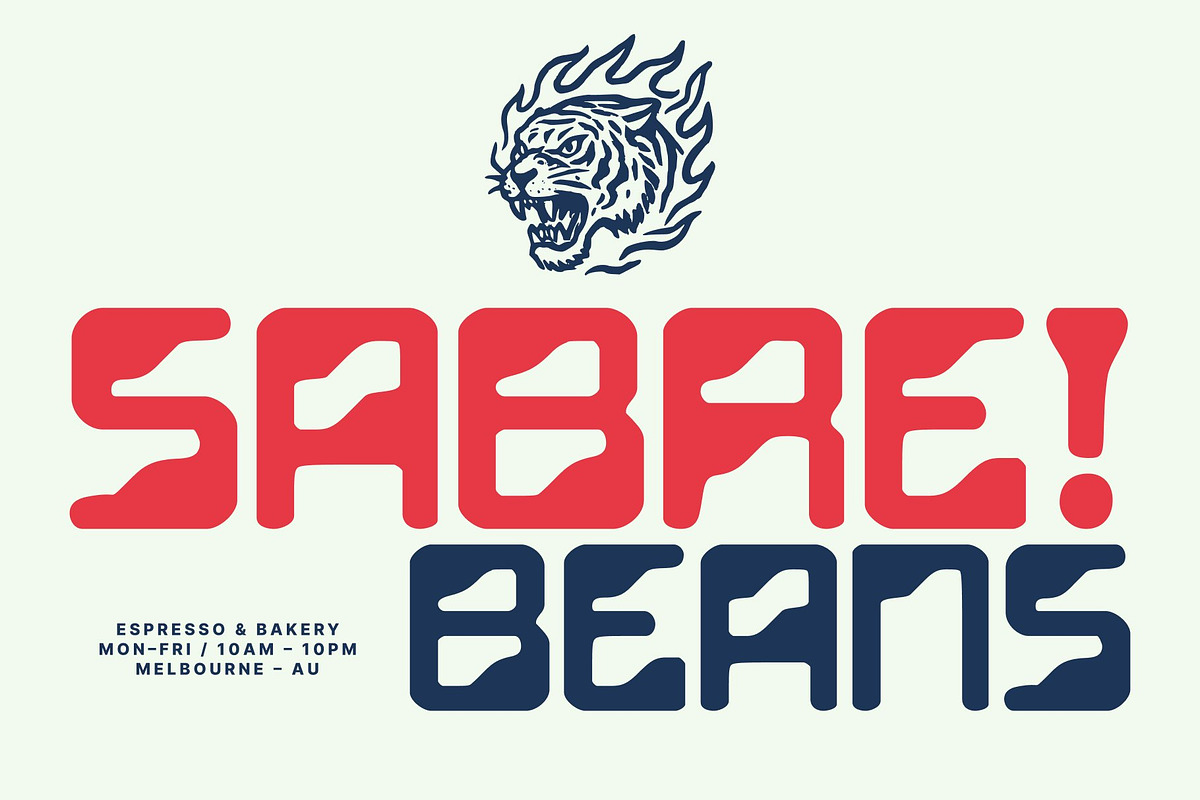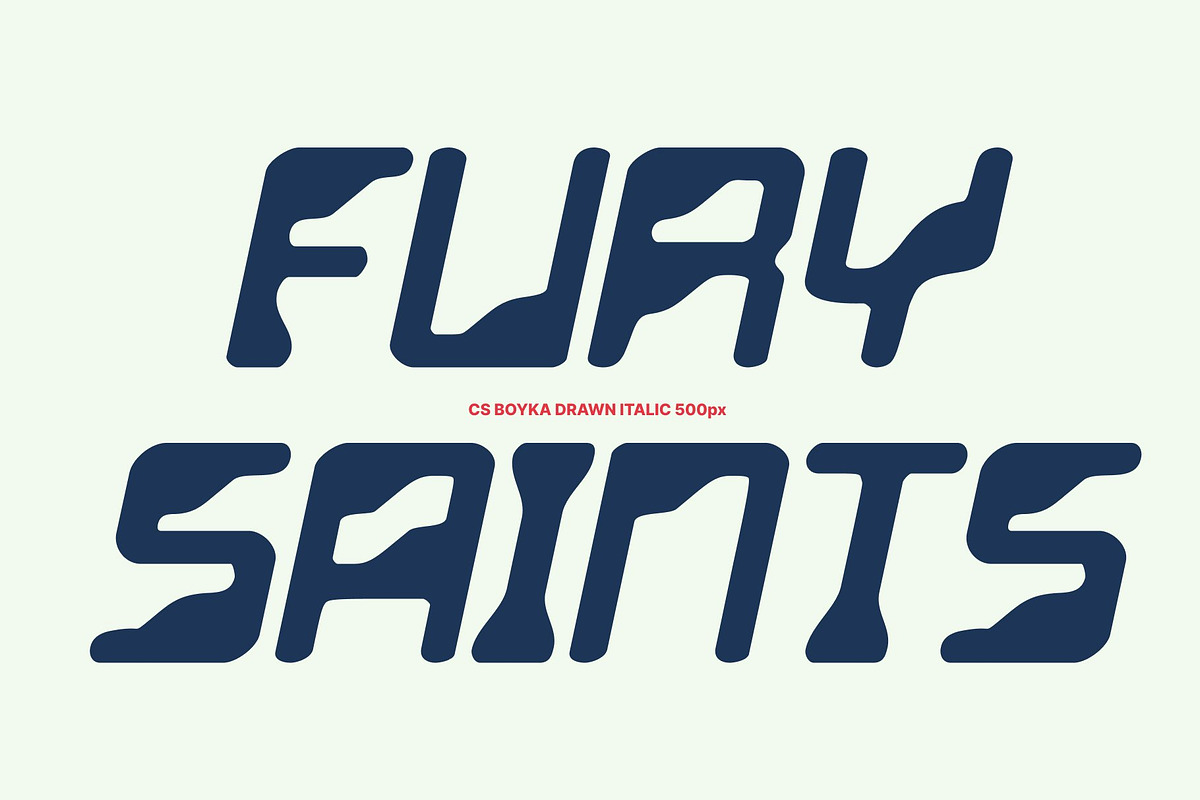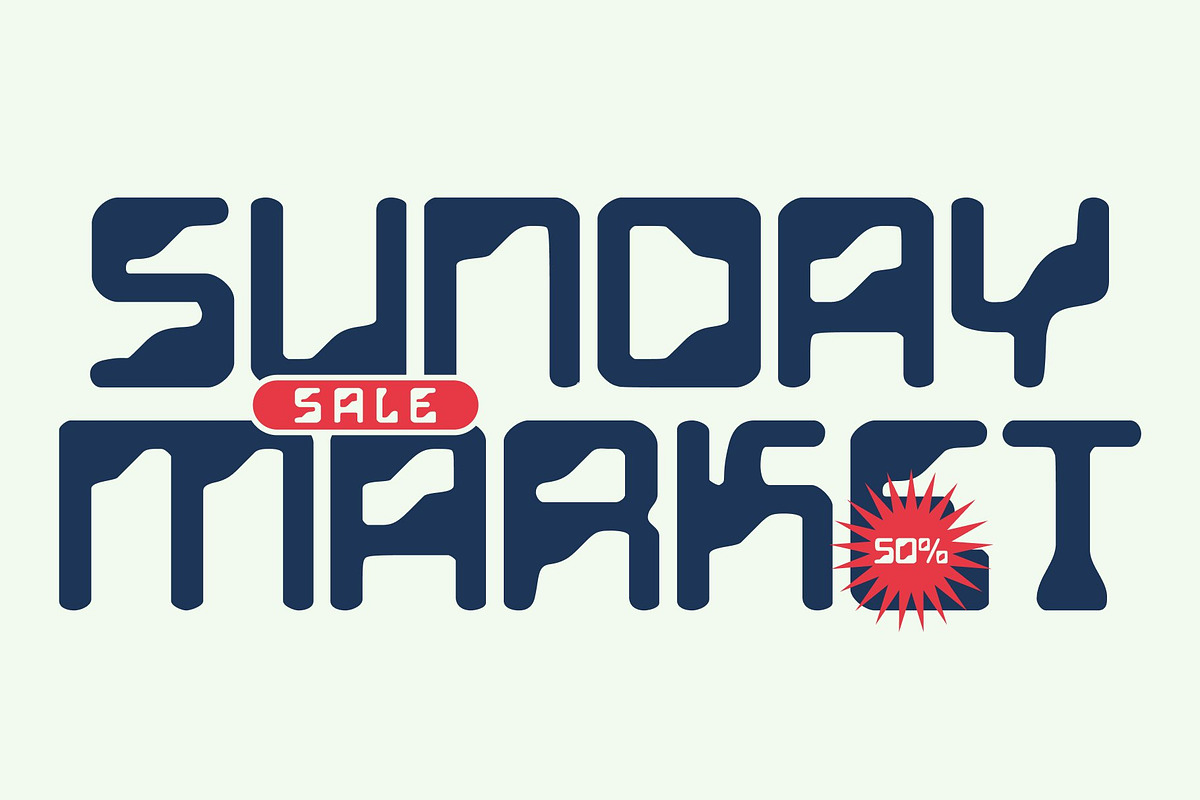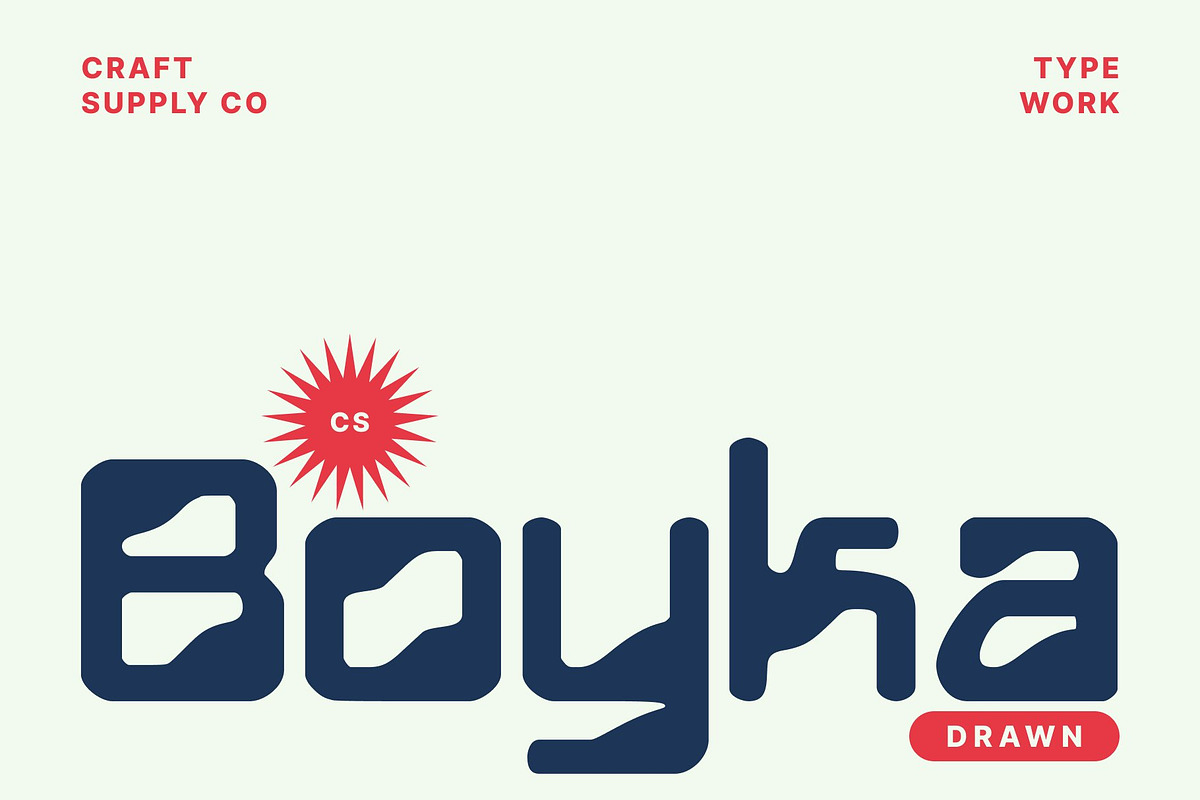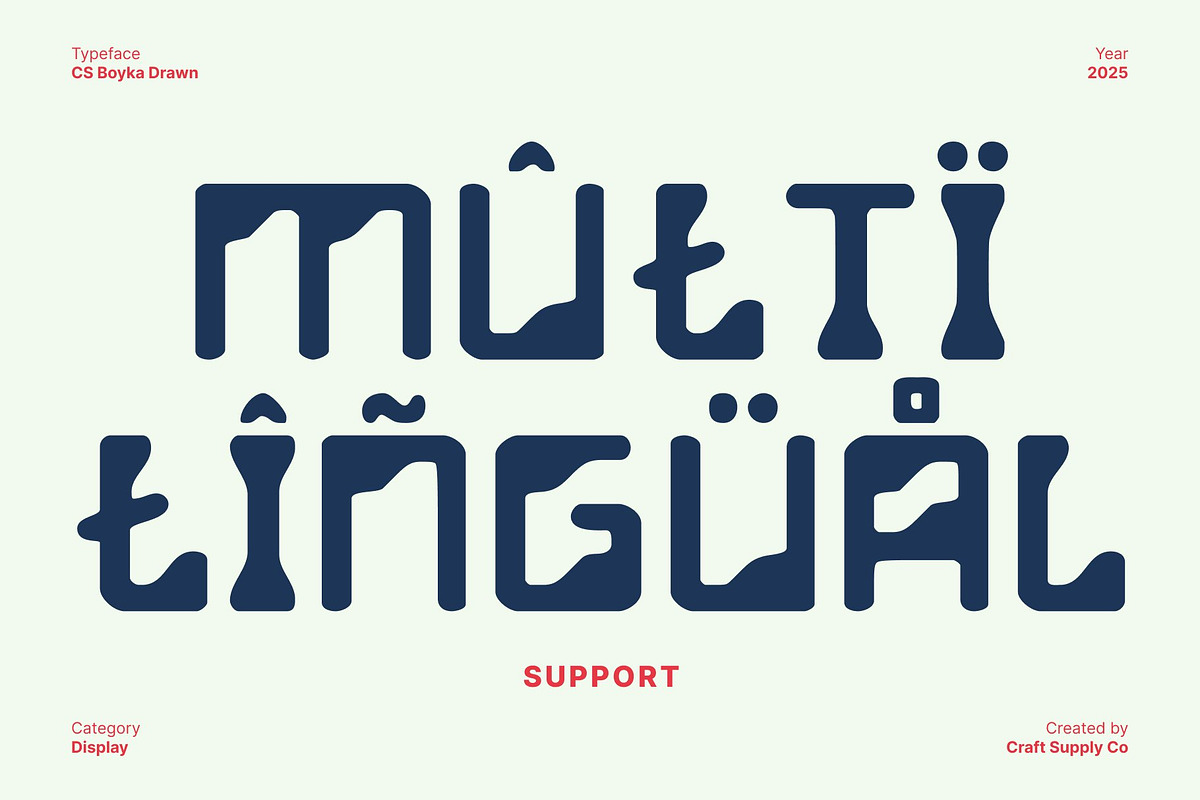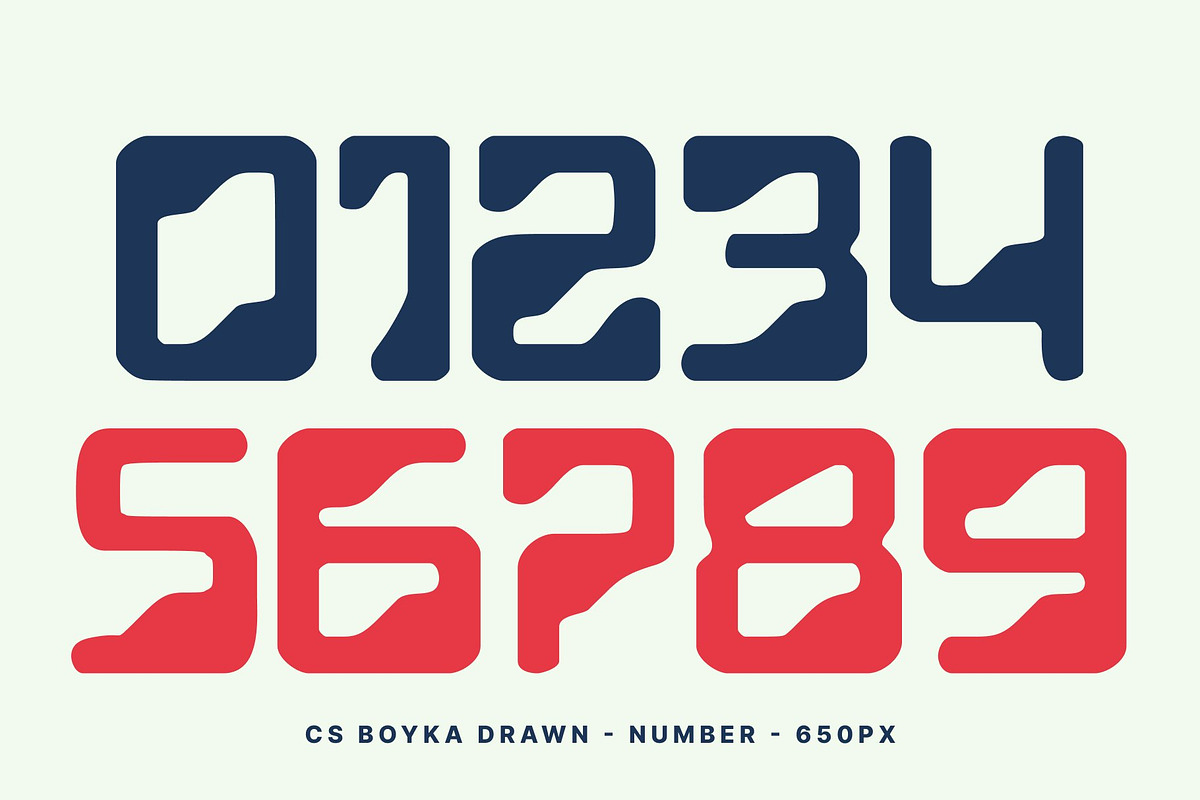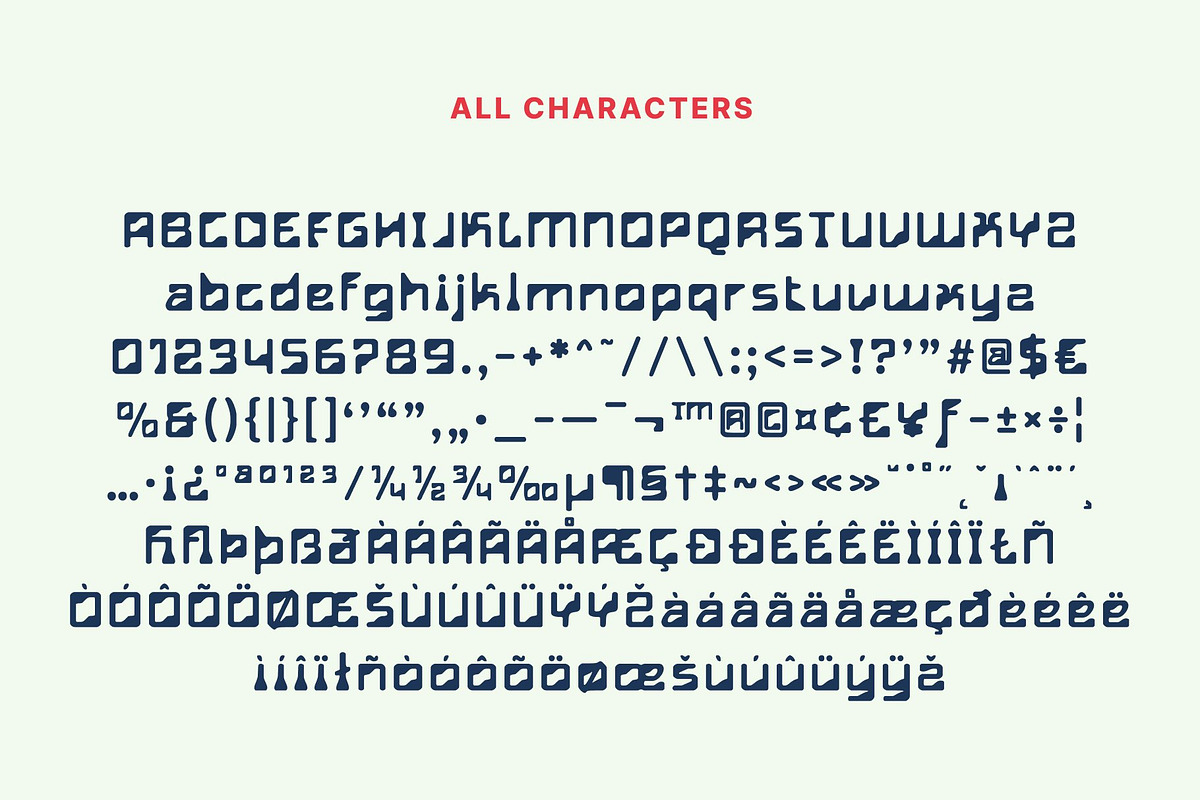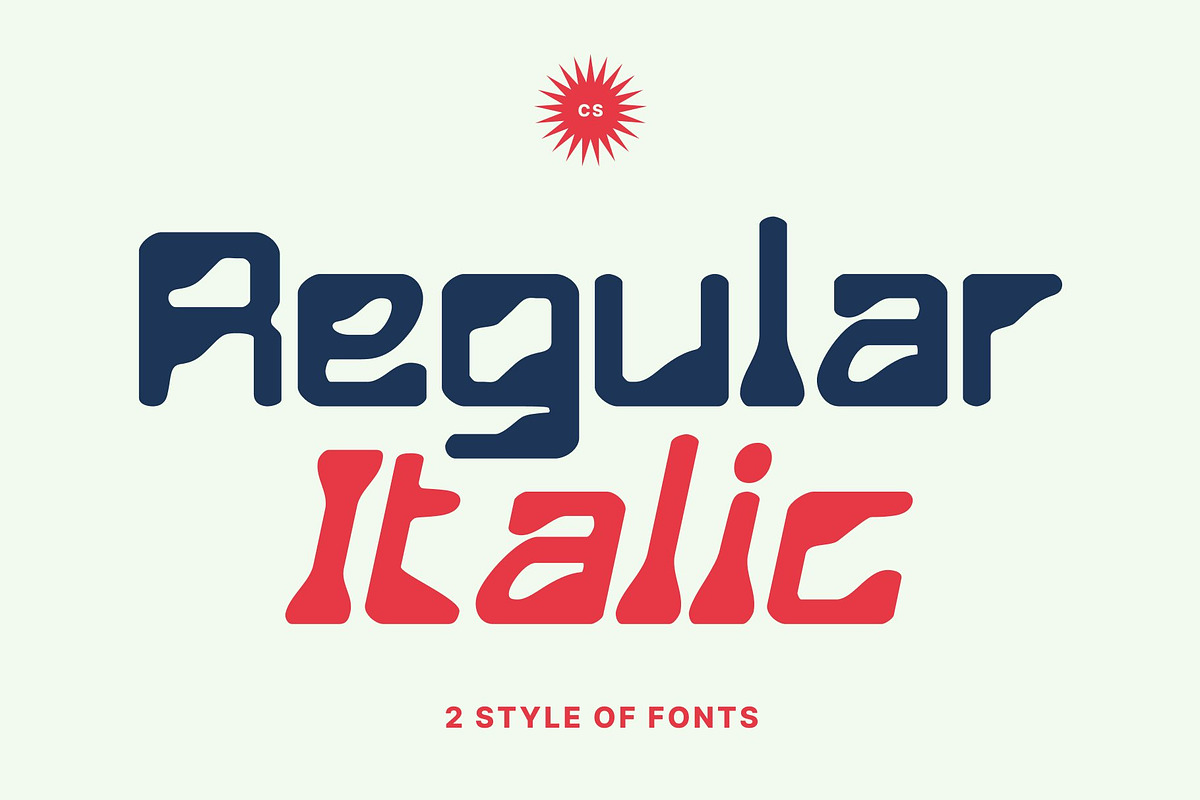
CS Boyka Drawn
CS Boyka Drawn – Cyberpunk Display Font with Textured Energy
Sharp Angular Lines with a Futuristic Edge This is a cyberpunk-inspired display font built with sharp, angular letterforms that pulse with futuristic attitude. Its striking geometry and bold silhouette instantly create a sci-fi atmosphere, evoking neon cities, digital chaos, and rebellious tech culture. Each character feels engineered for impact, making it perfect for designs that demand intensity and forward-looking style.
Neon-Inspired Styling with a Raw Drawn Texture Blending sleek cyberpunk aesthetics with a hand-drawn effect, this font introduces a unique tactile quality rarely seen in futuristic fonts. The drawn texture gives the sharp forms a gritty, rebellious feel like glowing letters sketched on metal or scratched into neon-lit surfaces. This fusion of precision and irregularity adds depth, personality, and unmistakable visual power.
Perfect for Gaming Visuals, Posters, and Digital Projects The energetic design of this font shines brightest in gaming layouts, sci-fi posters, digital interfaces, and futuristic branding. Its aggressive lines naturally command attention, making it ideal for titles, logos, event graphics, and motion visuals. Whether you’re designing for sports, tech media, or conceptual artwork.
A Typeface That Radiates Rebellion and High-Tech Attitude This font was crafted for creators who want to push boundaries and embrace futuristic expression. Its combination of cyberpunk aesthetics and drawn textures produces an edgy, unconventional look that elevates any visual experience.